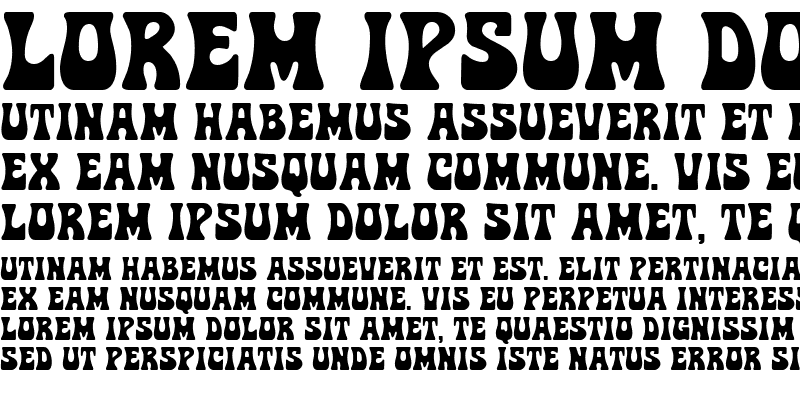
Jimi Font is perfect for rock music album covers, vintage band merchandise, psychedelic poster designs, music festival promotions, guitar shop branding, retro record store signage, classic rock tribute materials, electric music venue communications, legendary artist documentaries, and soulfully electric marketing communications.
Jimi Font is exciting because it channels the revolutionary spirit and electrifying creativity of legendary rock music with its boldly expressive letterforms that seem to vibrate with the raw power of electric guitar riffs and pulse with the innovative energy that changed music forever. Its dynamically passionate character design reflects both the artistic genius of musical pioneers and the rebellious freedom that defines rock and roll's transformative cultural impact, making it perfect for brands celebrating musical innovation and creative rebellion.
Jimi Font family includes light, regular, medium, bold, and black weights, each with corresponding italic versions. The font family also features music-inspired ornaments, rock-themed ligatures, electric symbols, and legendary decorative elements that enhance its revolutionary aesthetic and musical versatility.
This electrically powerful typeface represents the perfect fusion of musical innovation and creative rebellion. Jimi Font Free Download enables designers to experience its rock and roll potential before making a commercial commitment. The font's ability to convey both artistic genius and rebellious energy makes it ideal for music industry brands, entertainment venues, and creative businesses targeting audiences passionate about rock music and artistic innovation.
Whether you're developing music brand identities, creating concert promotional materials, or designing rock-inspired communications, Jimi Font brings an unmistakable sense of electric creativity and musical legend to every project. Its revolutionary character and rock heritage create powerful connections that resonate with music lovers and audiences seeking authentic artistic expression and creative freedom.
The font's versatility excels in music and entertainment environments where creativity and rebellious spirit are celebrated. Its electric character makes it particularly effective for record labels, music venues, guitar manufacturers, and entertainment brands seeking to establish legendary relationships with musicians and rock music enthusiasts who appreciate artistic innovation and creative rebellion.
For designers working on projects requiring genuine rock and roll spirit and musical appeal, Jimi Font offers an exceptional solution. Its electric presence and comprehensive music-themed elements provide the tools needed for creating truly revolutionary communications, while its legendary energy ensures your designs capture the innovative genius and rebellious creativity that defines the most influential musicians and transformative rock music experiences.